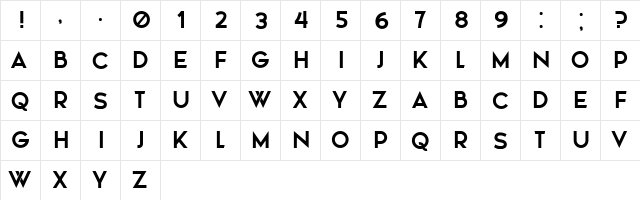
Ministro Regular
Design Context for Ministro Typeface
Ministro is a composed and adaptable typeface that performs quietly and consistently across a wide range of design contexts.
Pro Tip: Use Ministro in both headline and body roles to test its range before committing to a single application.